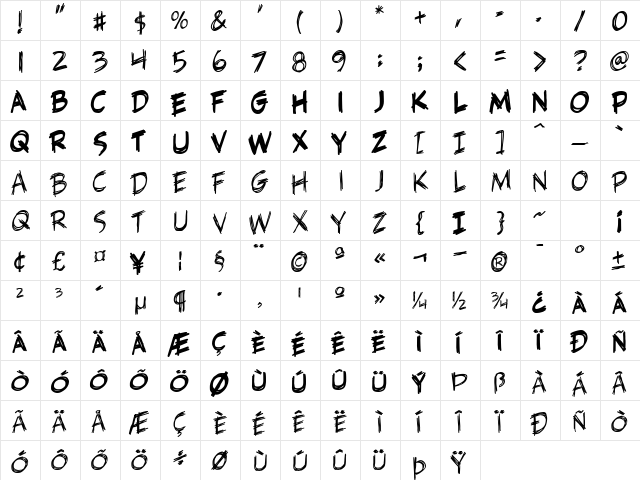
CCWiccanSpecialInt Regular Font Preview
CCWiccanSpecialInt Regular
CCWiccanSpecialInt Regular Font Details
Design Context for CCWiccanSpecialInt Typeface
CCWiccanSpecialInt is a composed and adaptable typeface that performs quietly and consistently across a wide range of design contexts.